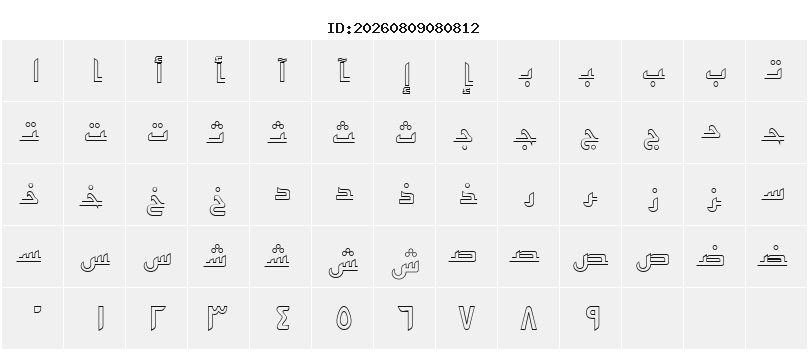
PersianKufiOutlineSSK Preview
About PersianKufiOutlineSSK.ttf
PersianKufiOutlineSSK.ttf is a modern, elegant sans-serif font designed for ultimate readability and visual harmony. Perfect for branding, headlines, web design, and print materials.